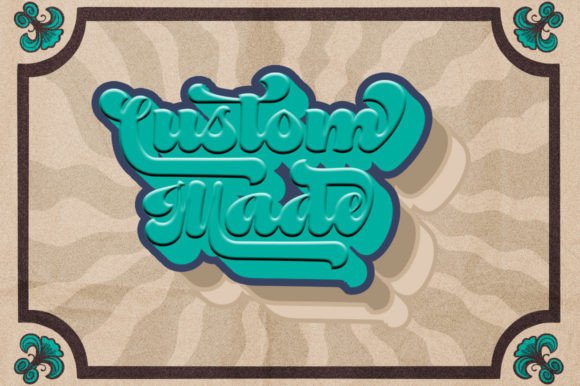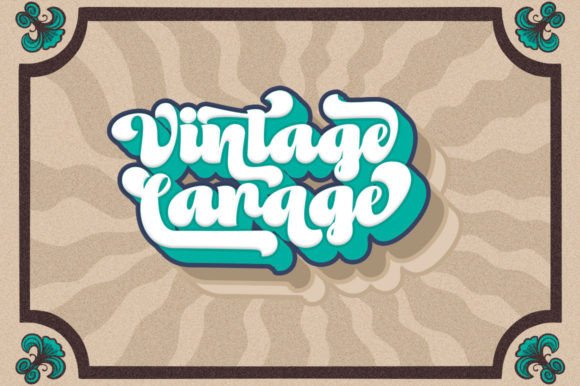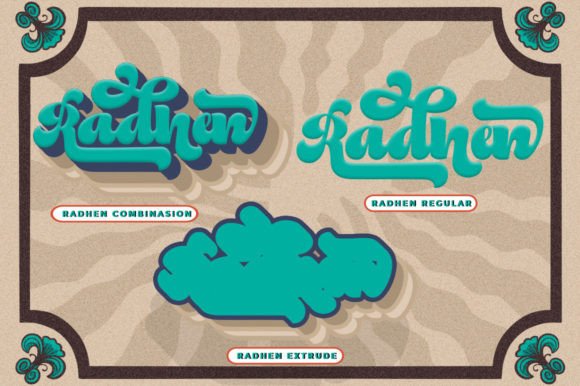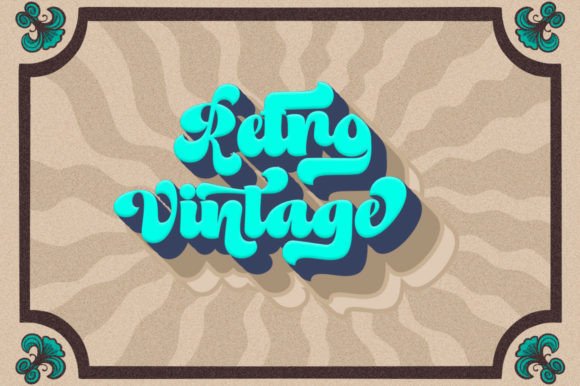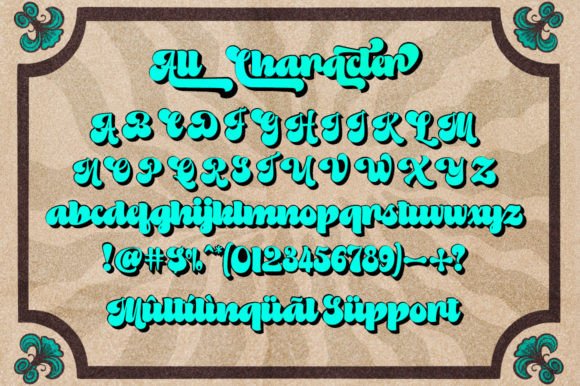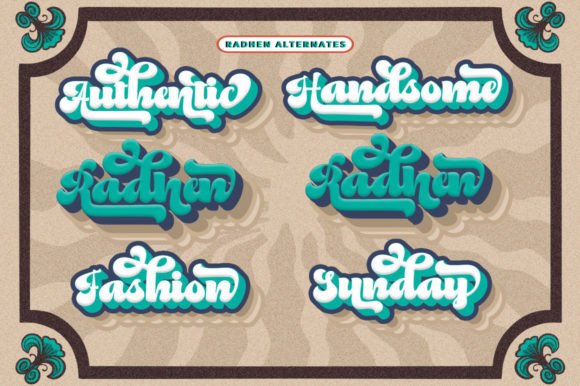
Introduction to Radhen Font
Do you remember that moment when you finally nailed the perfect design for your brand or creative project? The rush of excitement, the sense of accomplishment, and the knowledge that you’ve created something truly unique? That’s what happens when you have the right tools and resources at your disposal. And that’s exactly what the Radhen Font is designed to provide.
As a designer, you know how challenging it can be to find the perfect font to match your vision. But what if you could have a high-quality, versatile font that’s perfect for logotype lettering and can elevate your designs to the next level? That’s where the Radhen Font comes in – a game-changing design resource that’s waiting to be unleashed on your next creative project.
Key Features of Radhen Font
- High-quality, professional font design ideal for creative projects and presentations
- Unique, modern design with a subtle flair, making it perfect for modern and minimalist designs
Honest Review: Radhen Font
As a designer, I’m always on the lookout for high-quality design resources to elevate my creative projects. Recently, I stumbled upon the Radhen Font, and I must say, it’s been a game-changer. The Radhen Font is a free download that’s perfect for designers who want a sleek and modern look for their designs.
- ✨ High-quality design: The Radhen Font is incredibly detailed and visually appealing, making it perfect for logos, branding materials, and other design elements.
- ✨ Easy to customize: The Radhen Font is highly customizable, making it easy to adjust to fit your design needs.
- ⚠️ Limited font styles: The Radhen Font currently only comes in a few styles, which may limit its versatility for certain design projects.
- ⚠️ Not suitable for large-scale projects: While the Radhen Font is perfect for smaller design projects, it may not be the best choice for large-scale projects that require a more extensive font library.
Overall, I’m thoroughly impressed with the Radhen Font. It’s a high-quality design resource that’s perfect for designers who want a modern and sleek look for their creative projects. While it has its limitations, the benefits far outweigh the drawbacks, making it a valuable addition to any design toolkit.
Radhen Font is a versatile design resource suitable for various creative projects, including:
- Branding
Lato is a popular, free download font that is highly regarded for its high-quality design and versatility. It is a sans-serif font that is ideal for use in creative projects that require a clean and modern aesthetic. Lato is highly legible, even at small font sizes, making it suitable for use in a variety of design applications.